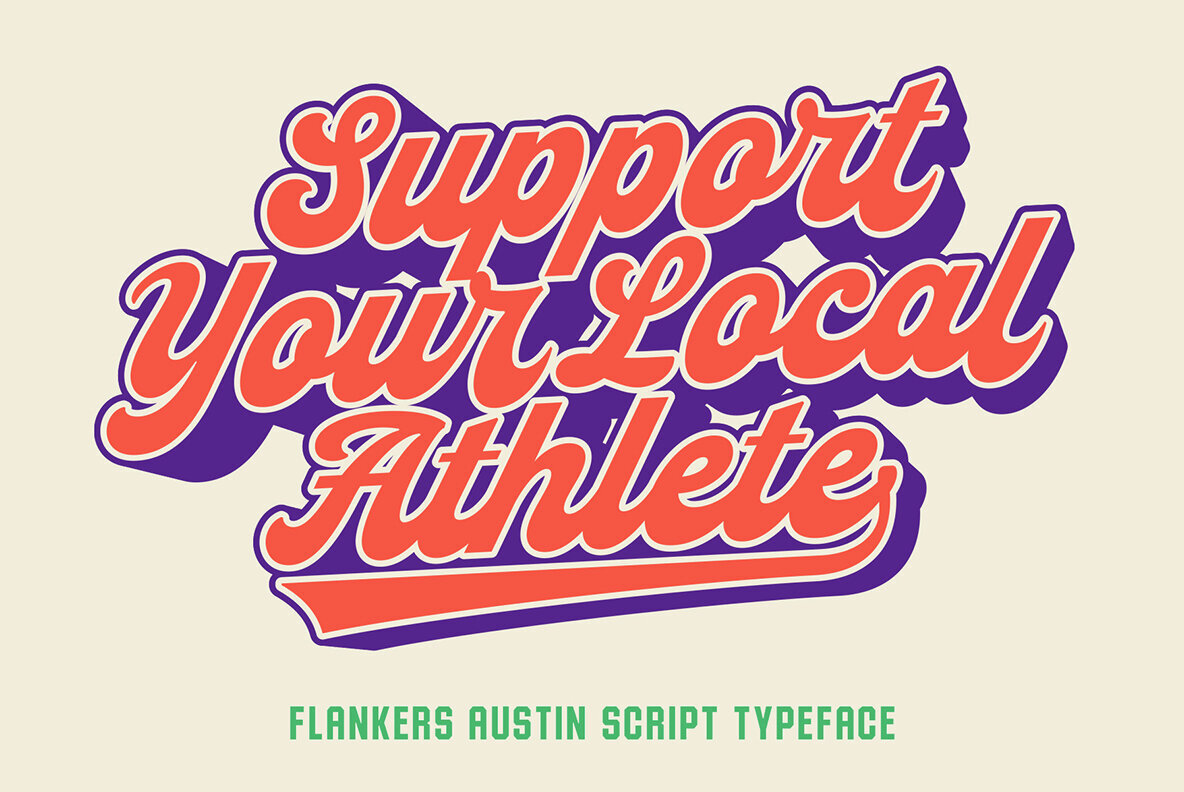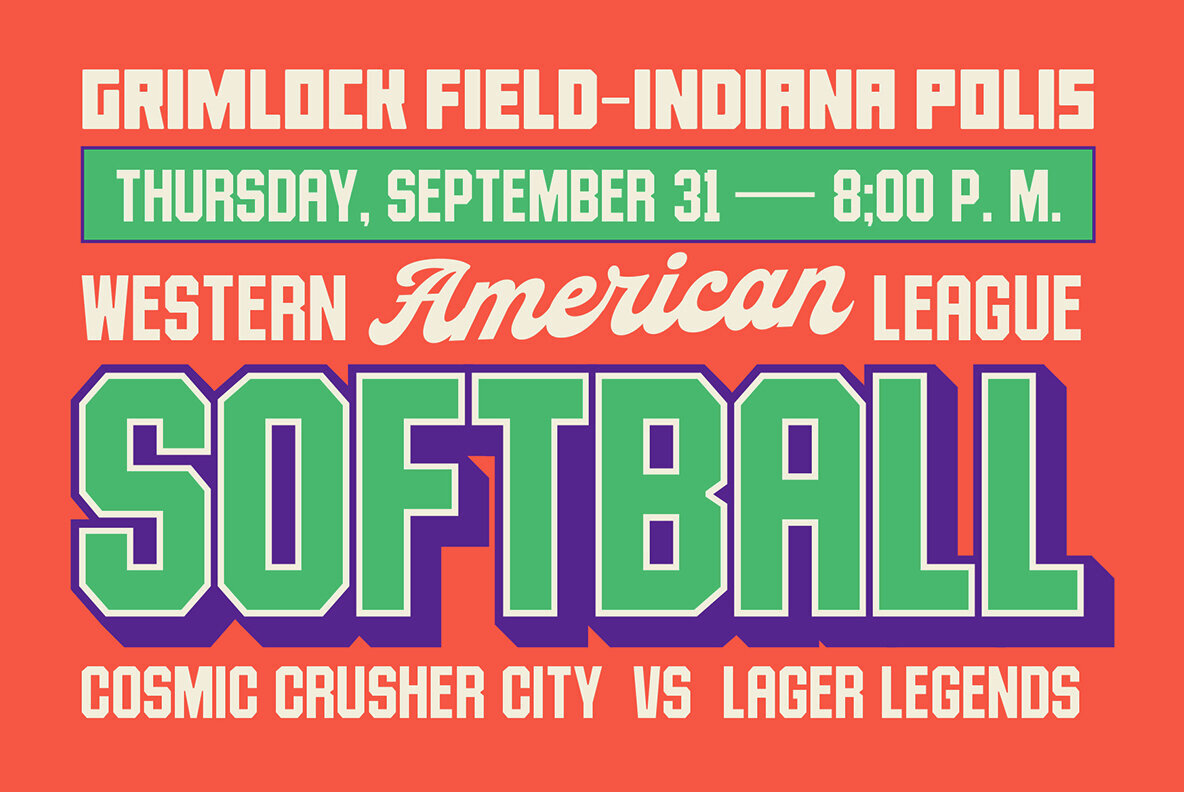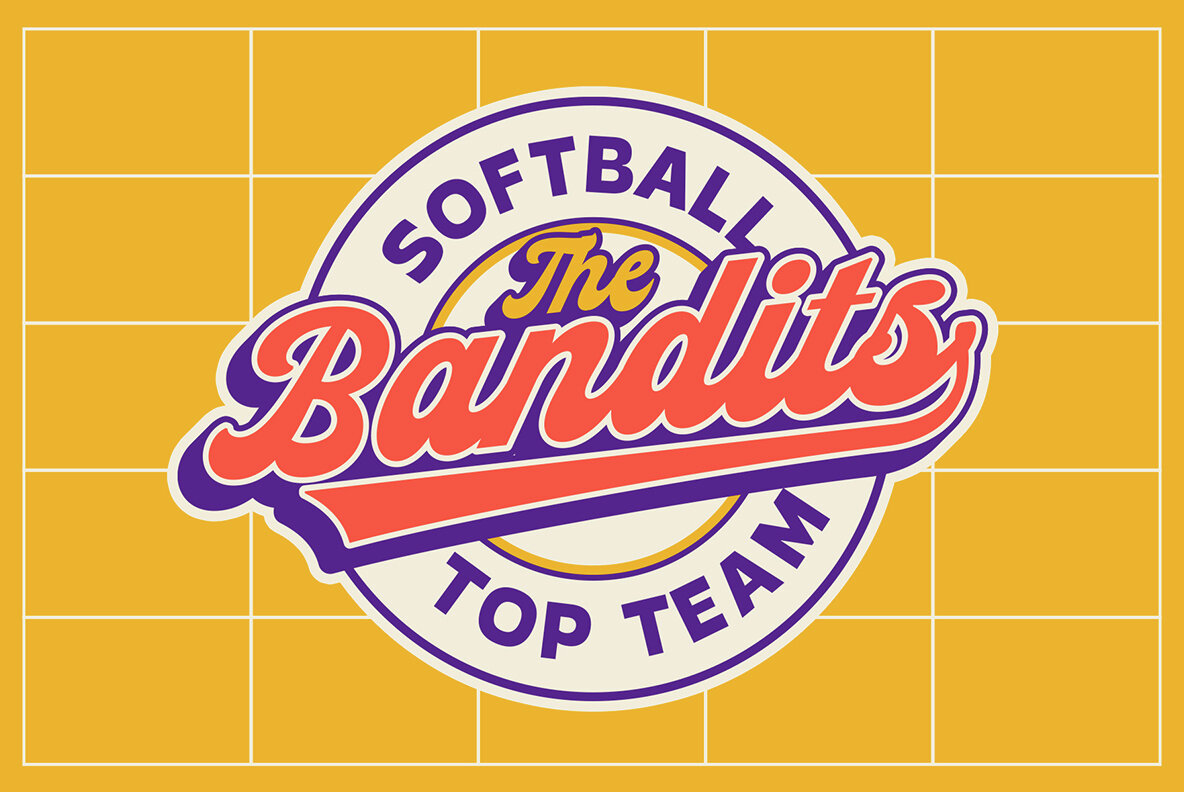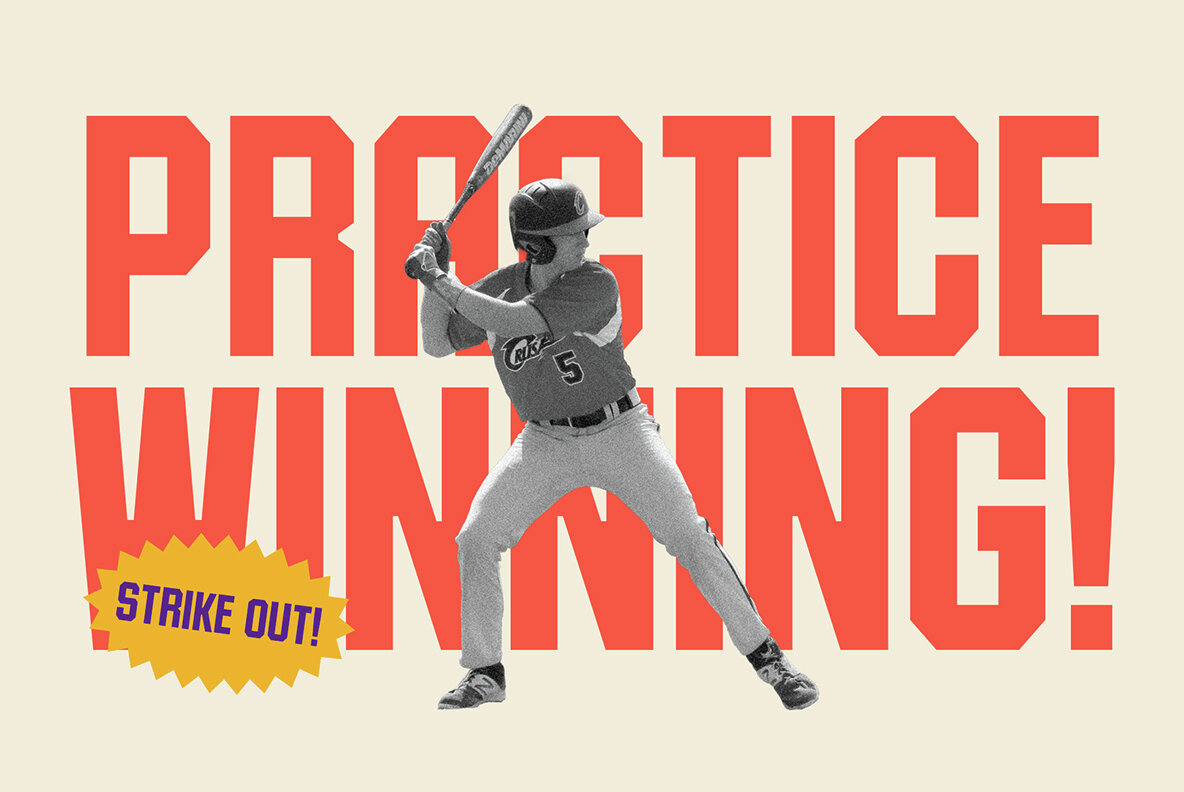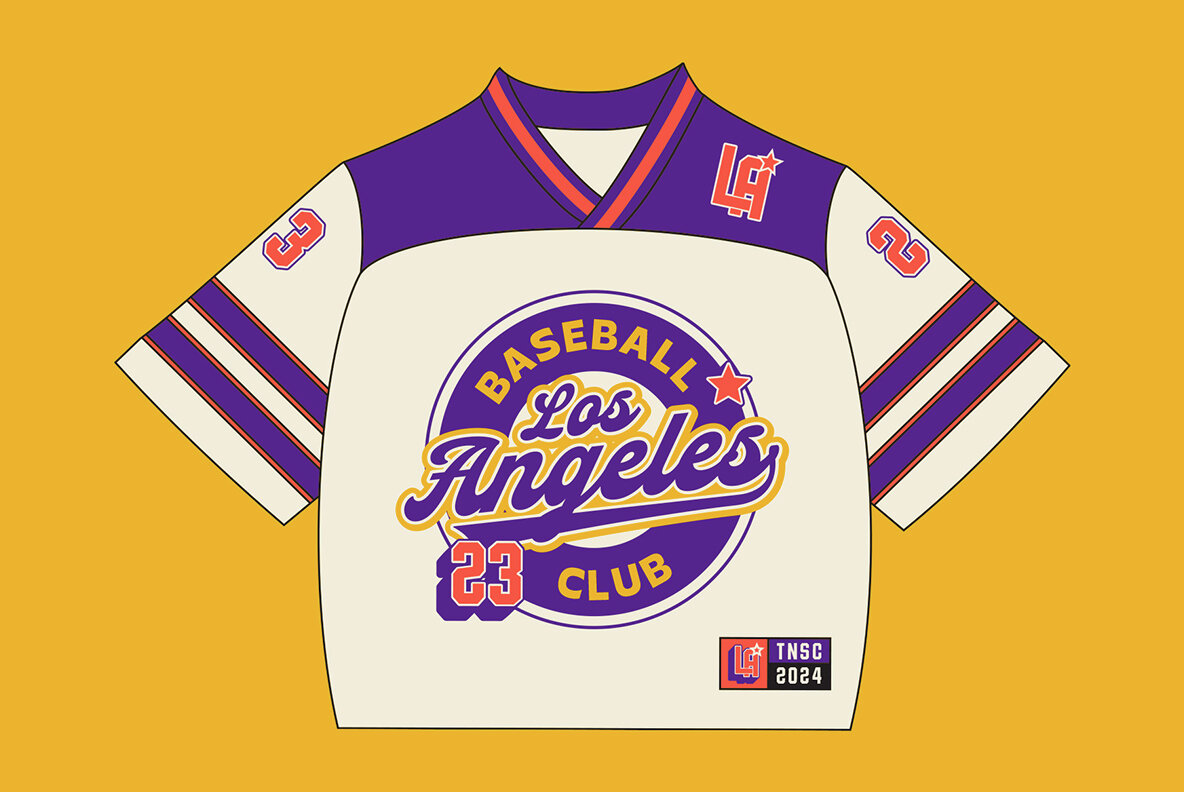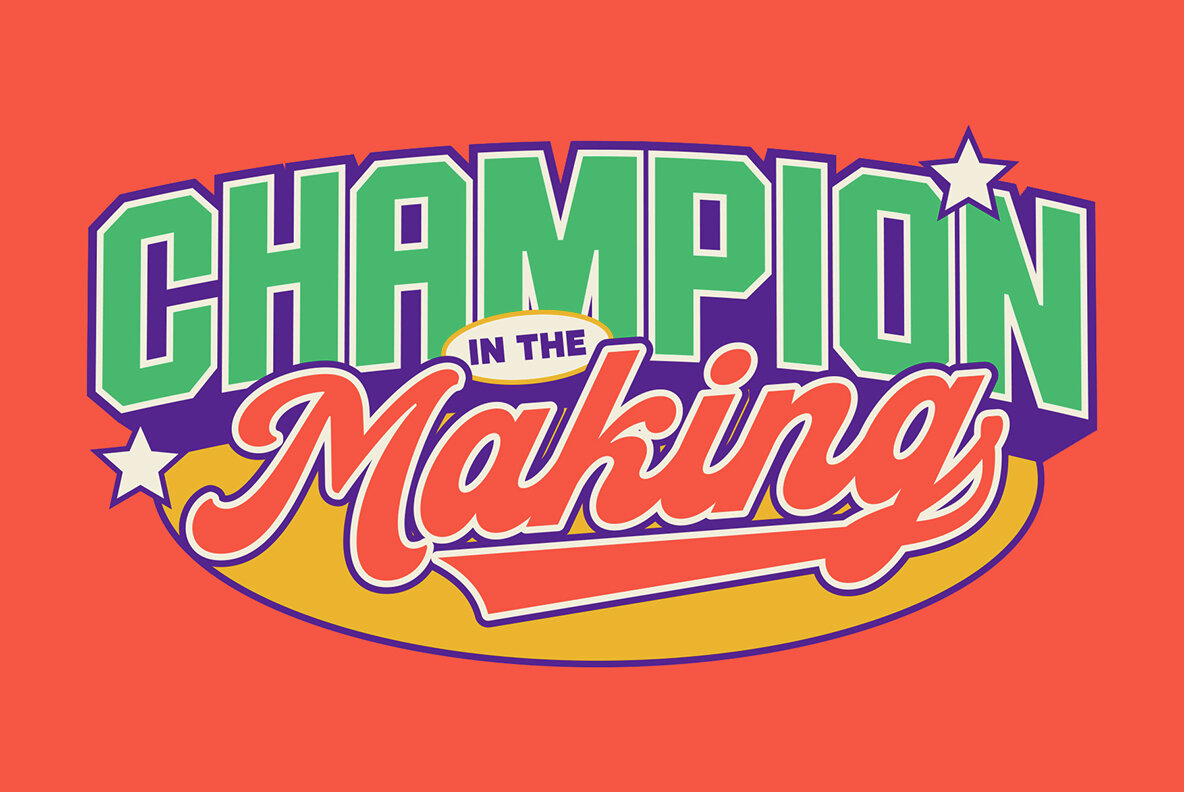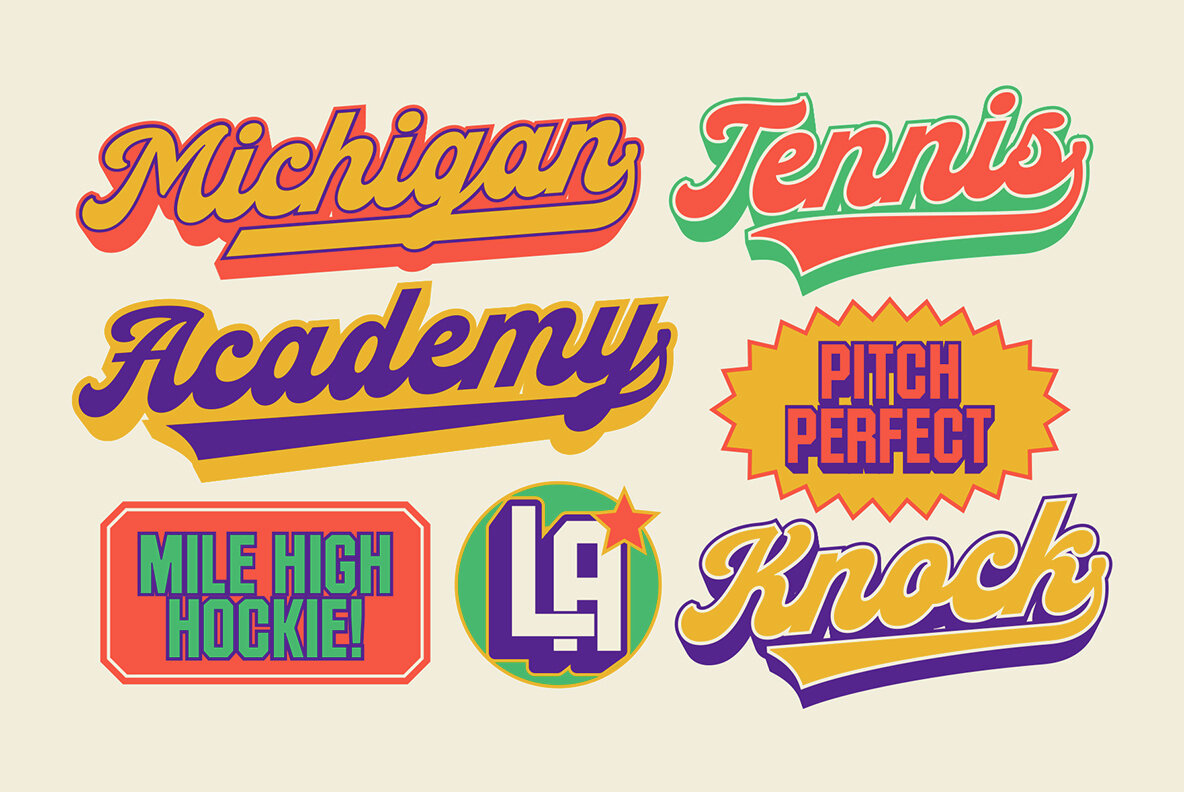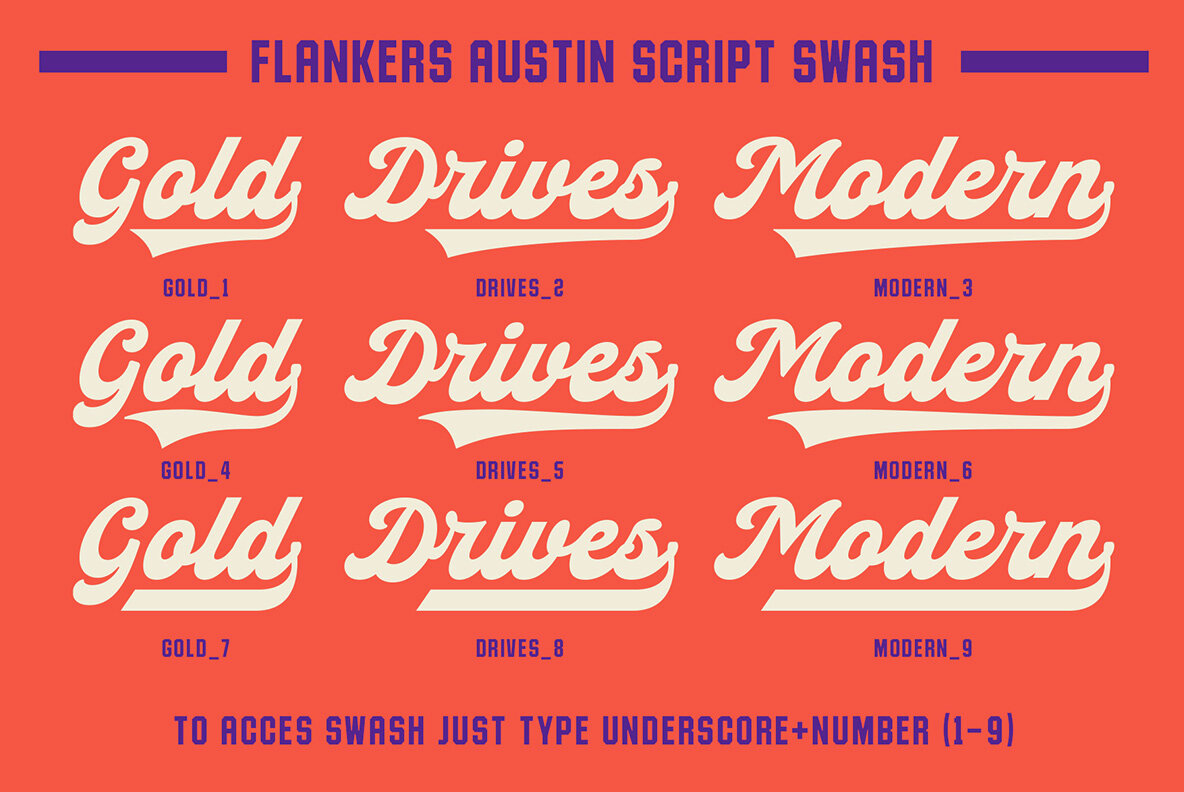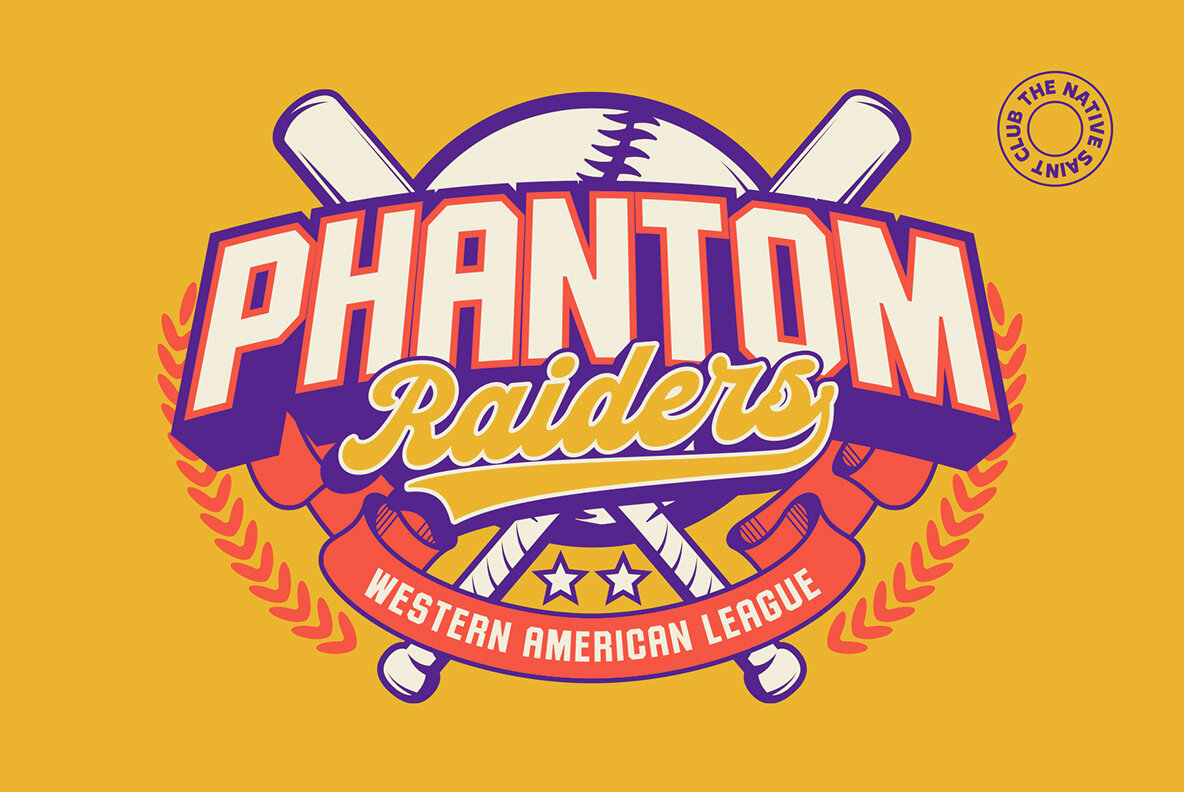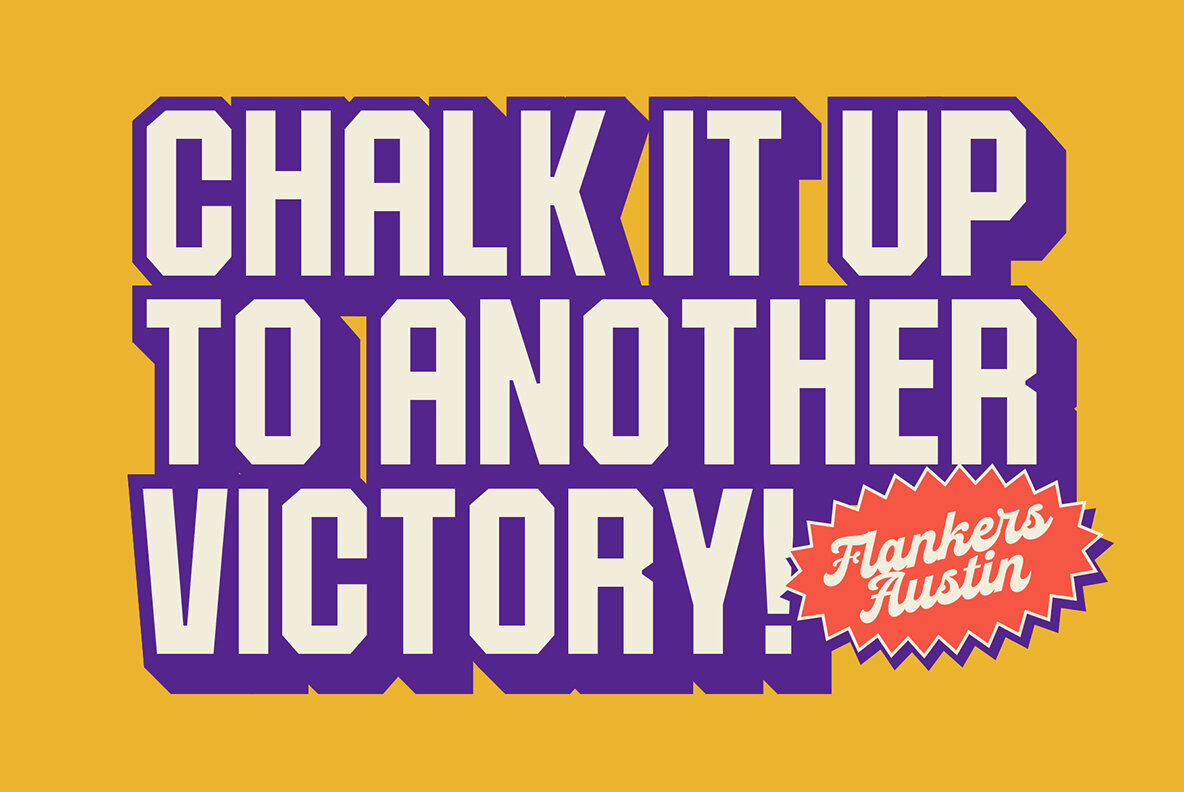
Flankers Austin Font
Flankers Austin Sans
Flankers Austin Script
Flankers Austin is a retro varsity font duo that contains a Script and Sans Serif. This font duo is perfect for baseball or football logos! The script font has flowing strokes and decorative elements, making it ideal for headlines and logos, while the sans serif offers bold shapes and uniform stroke widths, giving it a solid, strong feel. It’s perfect for branding, packaging, advertising, and printed materials that require a retro, vintage feel.